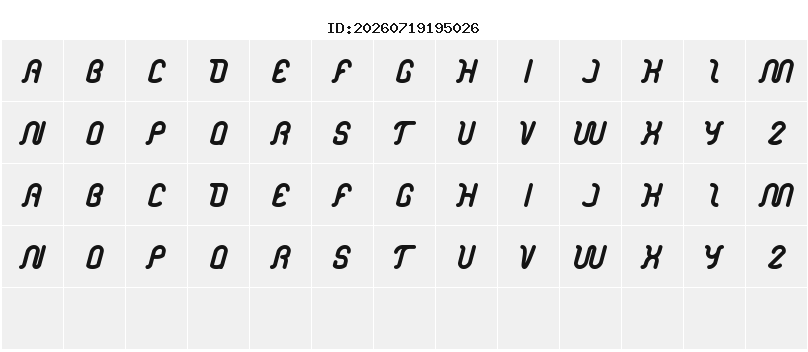
electronic Preview
• Font Name: electronic
• Font ID: electronic:Version 1.00
• Full Font Name: electronic
• Version: Version 1.00 July 13, 2013, initial release
• PostScript Name: electronic
About electronic.ttf
electronic.ttf is a modern, elegant sans-serif font designed for ultimate readability and visual harmony. Perfect for branding, headlines, web design, and print materials.